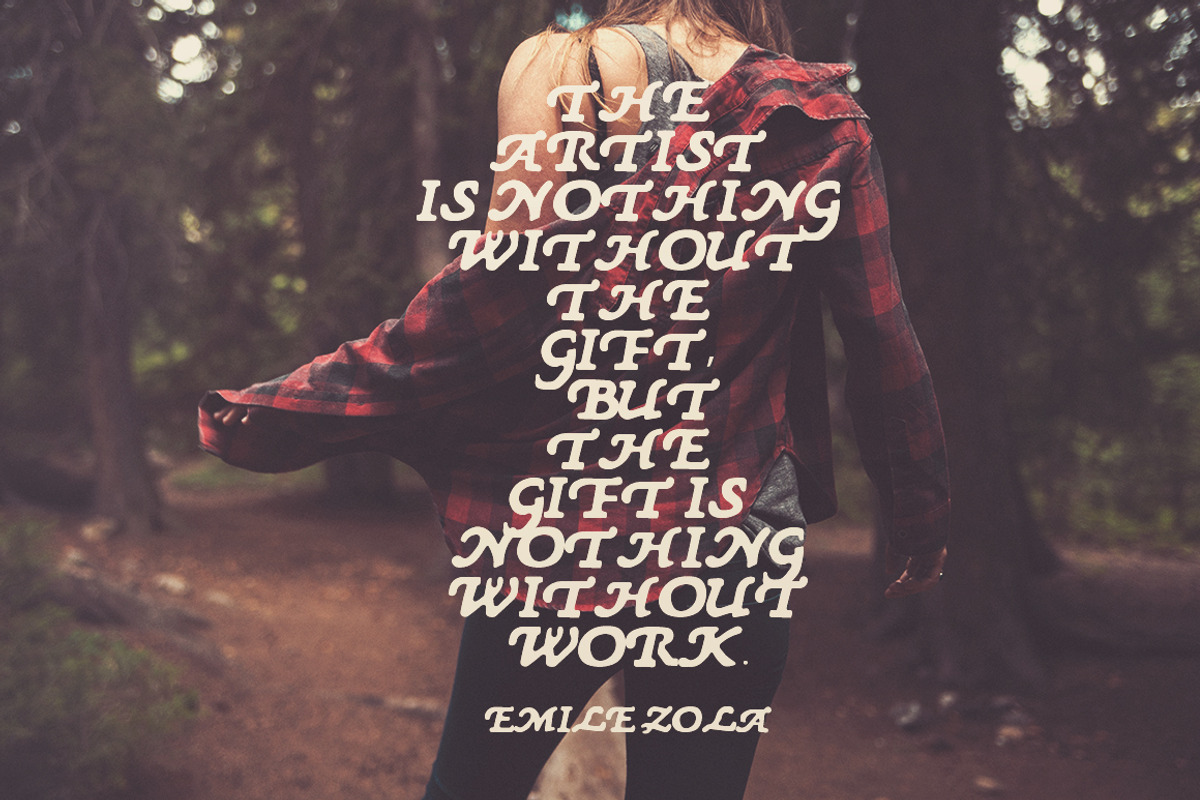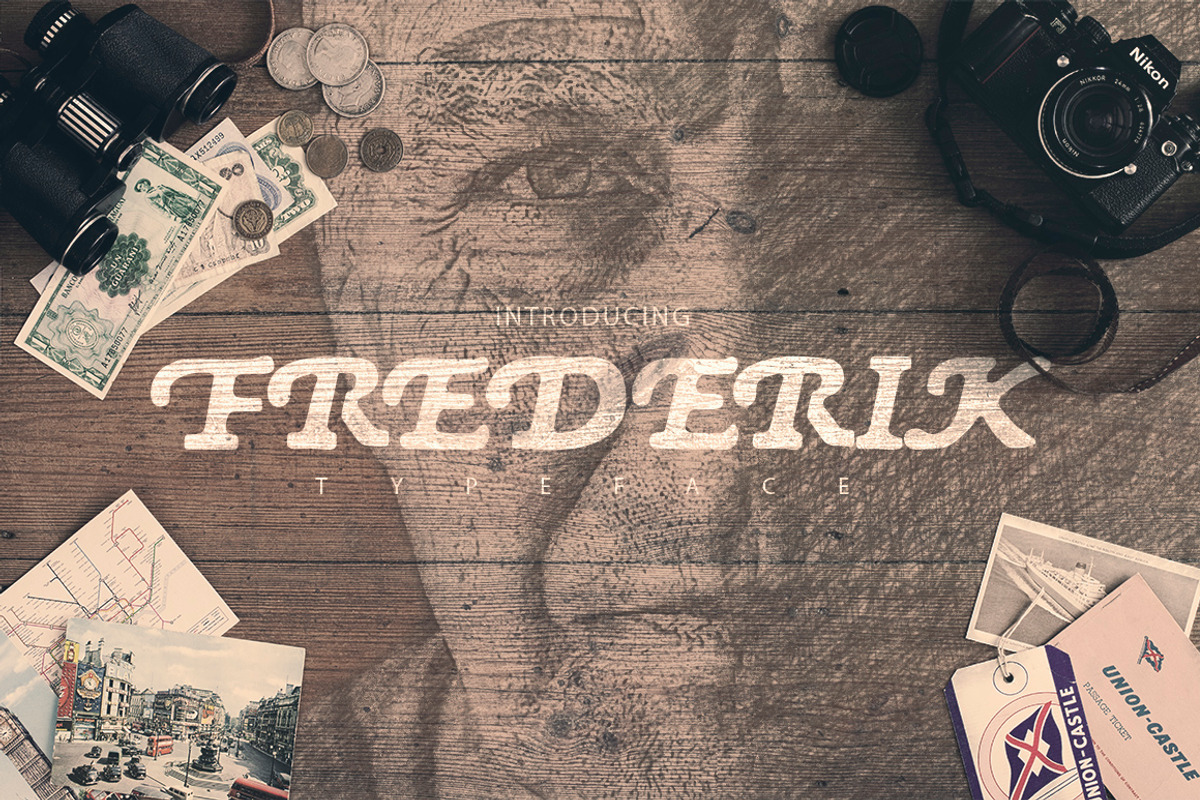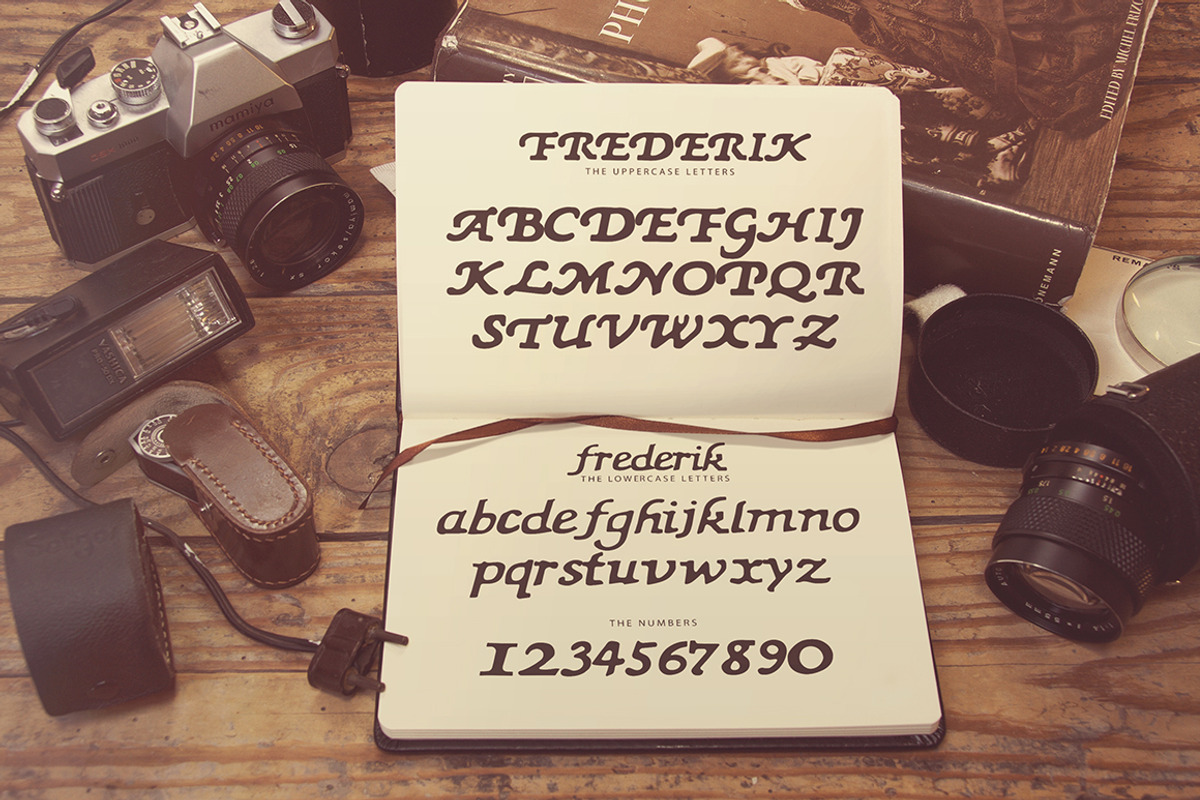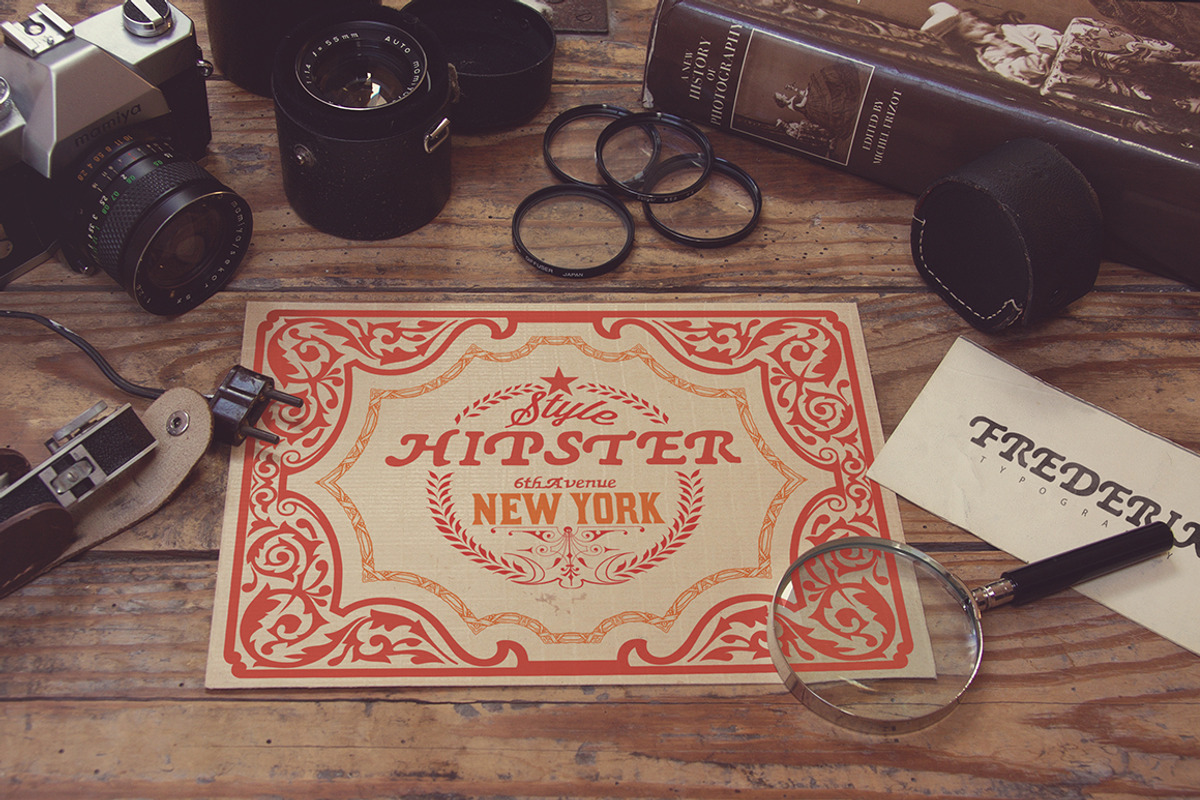
Frederik Display Font
Frederik Display Font by SmartDesigns is a font selected for branding, posters, packaging, typography.
Why Frederik Display Font is worth a look
Frederik Display Font by SmartDesigns fits naturally into Branding, posters, packaging, typography.